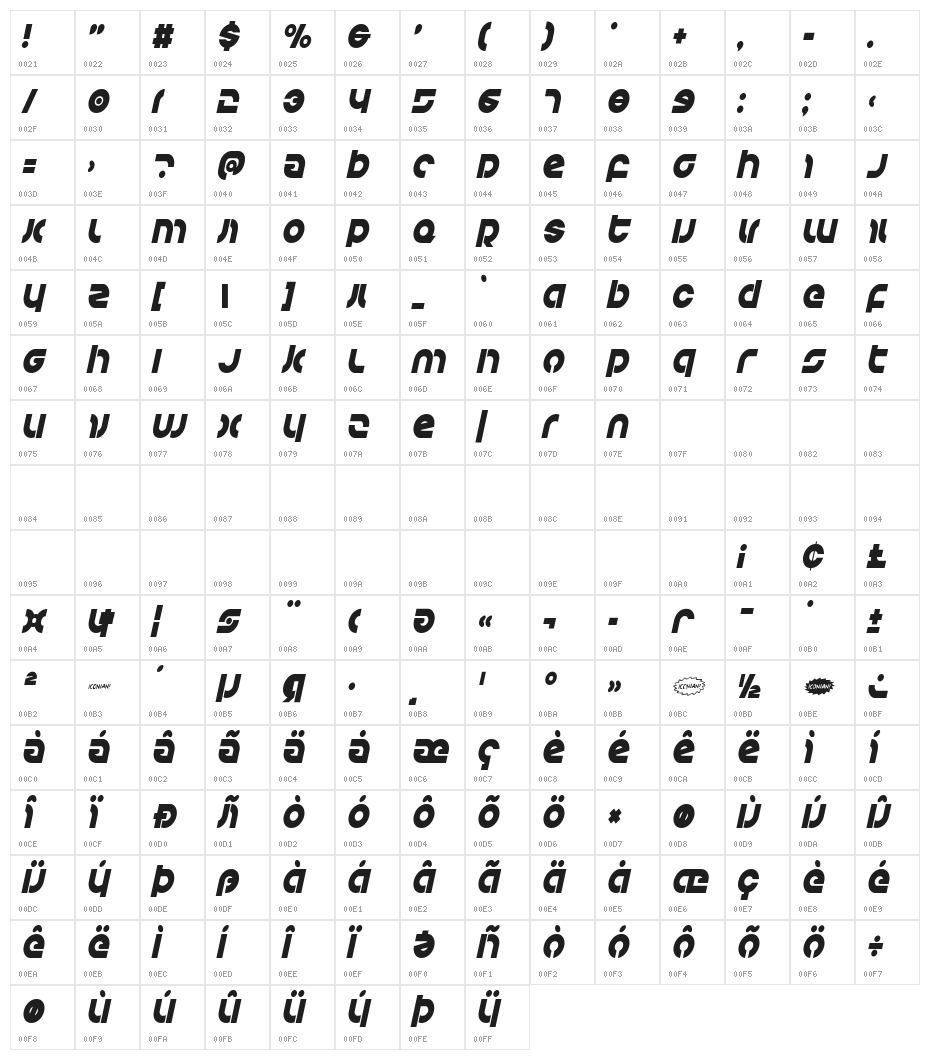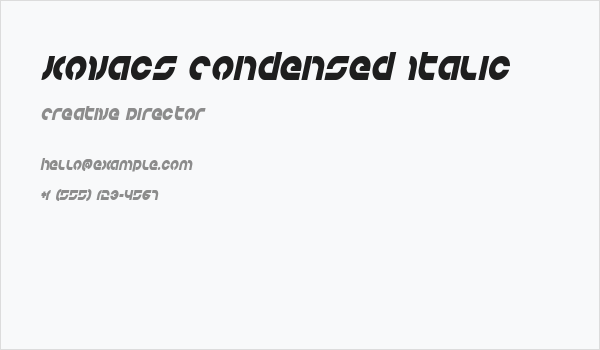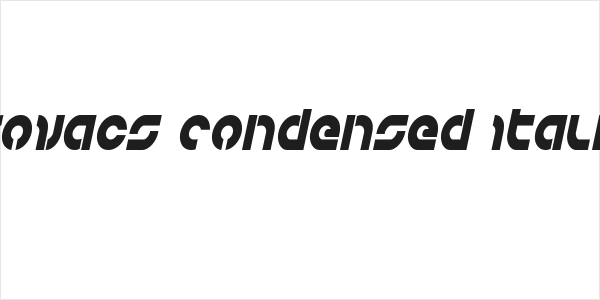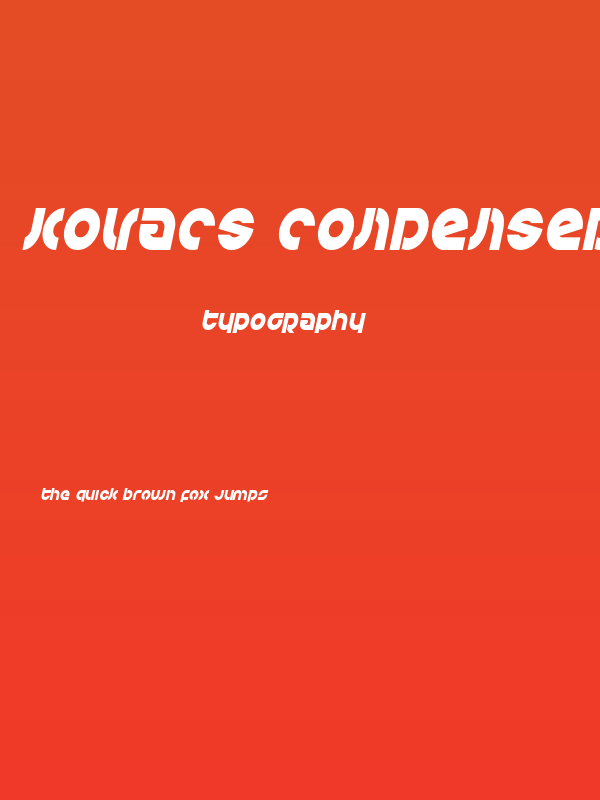
Kovacs Condensed Italic Font
Kovacs Condensed Italic Description
This font features a bold and dynamic style with a condensed and italicized form. The characters are designed with a futuristic and geometric aesthetic, incorporating sharp angles and smooth curves. The uppercase and lowercase letters maintain a consistent slant, enhancing the italicized effect. The numbers and special characters follow the same stylistic approach, ensuring uniformity across the typeface. The overall appearance is modern and sleek, making it suitable for projects that require a strong visual impact.
KOVACS-CONDENSED-ITALIC UPPERCASE
KOVACS-CONDENSED-ITALIC LOWERCASE
KOVACS-CONDENSED-ITALIC OTHER CHARS
| Proposed Projects | Ideal for branding, posters, headlines, and any design requiring a modern and impactful look. |